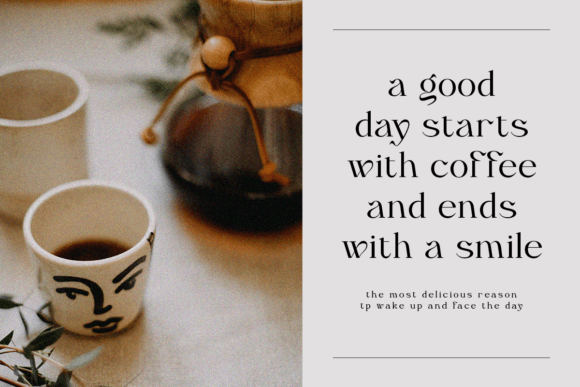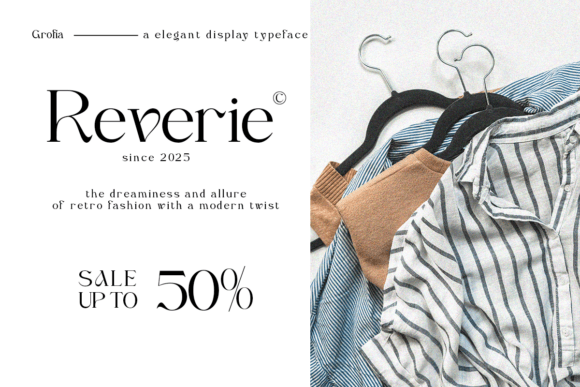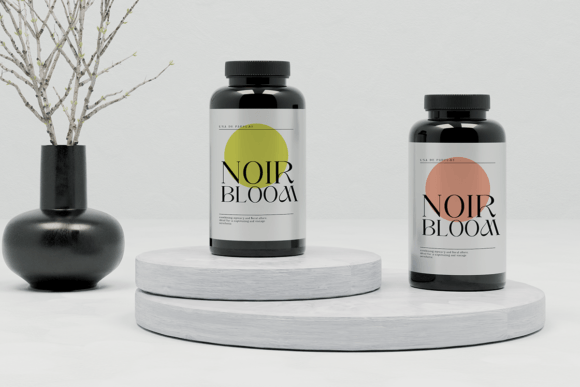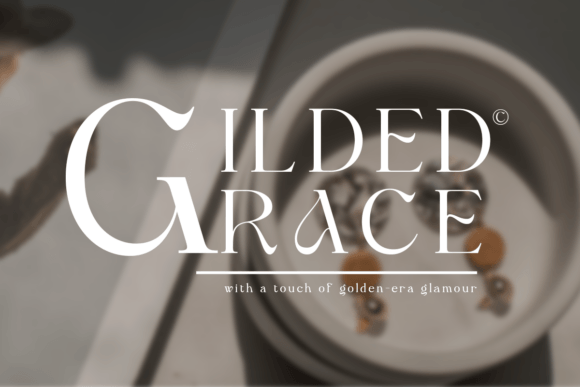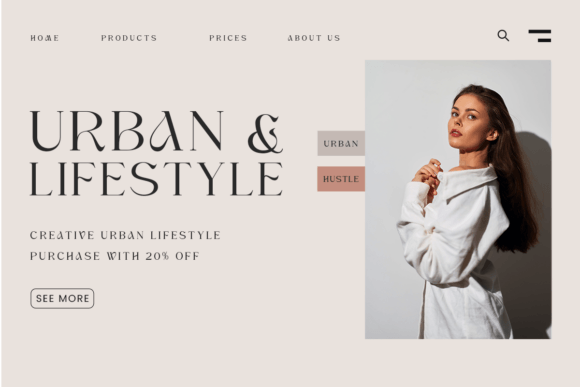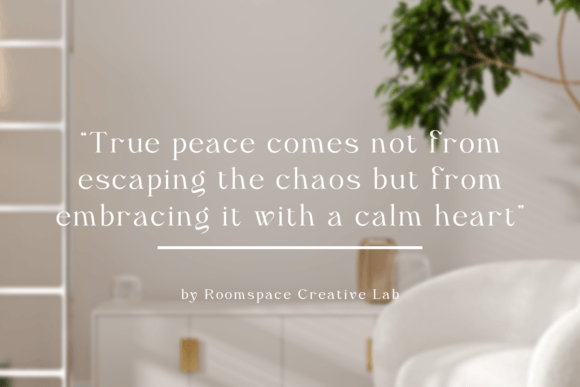
Discover Grofia Font: Elevate Your Designs with Elegance and Sophistication
In the world of typography, a font can make or break a design. For designers and crafters looking to add a touch of luxury and elegance to their creative projects, Grofia Serif is an exceptional choice. This unique and captivating typeface is designed to elevate your branding, editorial designs, packaging, and more, with its distinctive wave-like terminal details and luxurious style.
The Unique Charm of Grofia Serif
Grofia Serif boasts a harmonious blend of modern sophistication and timeless luxury, making it a standout in the realm of typography. Its elegant design, characterized by wave-like terminal details, adds a touch of refinement to any project. Whether you’re working on a high-end brand identity, a stylish editorial layout, or a premium packaging design, Grofia Serif brings a level of sophistication that’s hard to match.
Key Features of Grofia Font
- Distinctive Wave-Like Terminal Details: The unique wave-like terminal details of Grofia Serif set it apart from other typefaces. These details add a dynamic and luxurious feel to your designs.
- Luxurious Style: Grofia Serif exudes luxury and elegance, making it perfect for high-end branding, editorial designs, and packaging.
- Modern Sophistication: With its clean lines and harmonious blend of modern and classic elements, Grofia Serif brings a touch of modern sophistication to your designs.
- Versatility: Grofia Serif is incredibly versatile, suitable for a wide range of applications, from digital platforms to print materials.
Applications of Grofia Serif
The versatility of Grofia Serif makes it an excellent choice for various design projects. Here are some of the ways you can use this elegant typeface:
- Branding: Create a lasting impression with Grofia Serif’s luxurious and sophisticated style, perfect for high-end brand identities.
- Editorial Designs: Elevate your editorial layouts with Grofia Serif’s elegant design, ideal for magazines, newspapers, and digital publications.
- Packaging: Add a touch of luxury to your packaging designs with Grofia Serif, suitable for premium products and high-end brands.
- Digital Platforms: Use Grofia Serif to create engaging and sophisticated digital content, from website headers to social media graphics.
Why Choose Grofia Font?
With so many typefaces available, why choose Grofia Serif for your design projects? Here are a few compelling reasons:
- Unique Design: Grofia Serif’s distinctive wave-like terminal details and luxurious style make it a unique addition to any design.
- Elegance and Sophistication: This typeface brings a level of elegance and sophistication that’s hard to match, perfect for high-end designs.
- Versatility: Grofia Serif is suitable for a wide range of applications, making it a versatile choice for designers and crafters.
Grofia Serif is more than just a typeface – it’s a design statement. With its unique wave-like terminal details, luxurious style, and harmonious blend of modern sophistication and timeless luxury, Grofia Serif is the perfect choice for designers and crafters looking to elevate their creative projects. Whether you’re working on branding, editorial designs, packaging, or digital content, Grofia Serif adds a touch of elegance and sophistication that’s sure to impress.